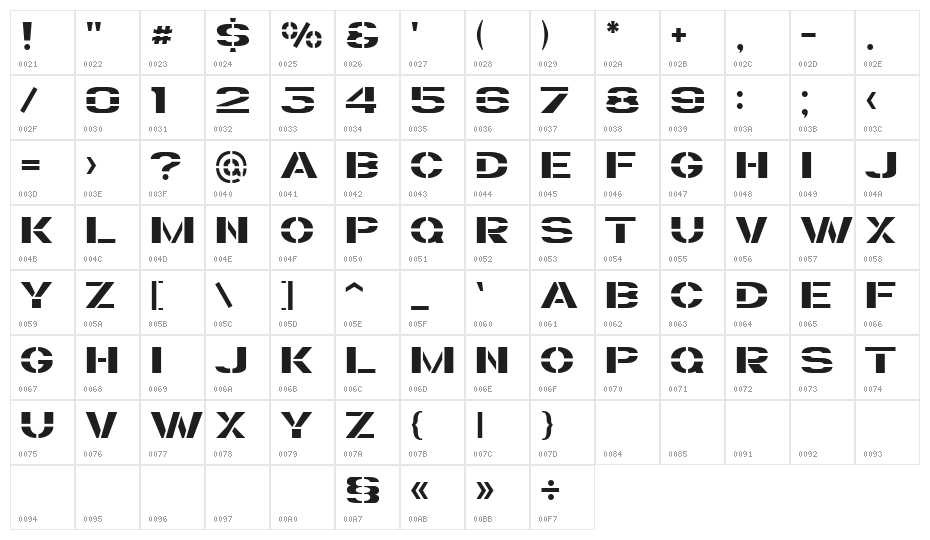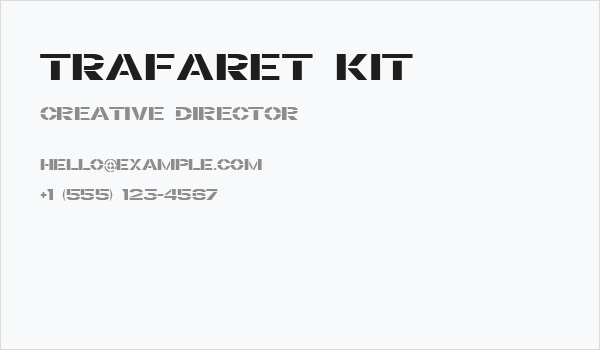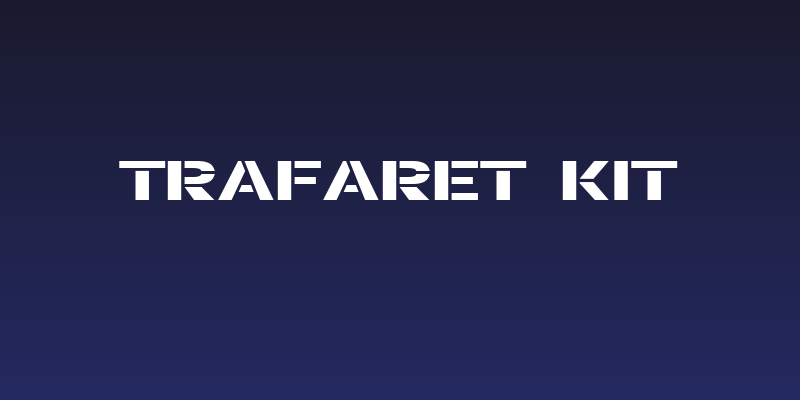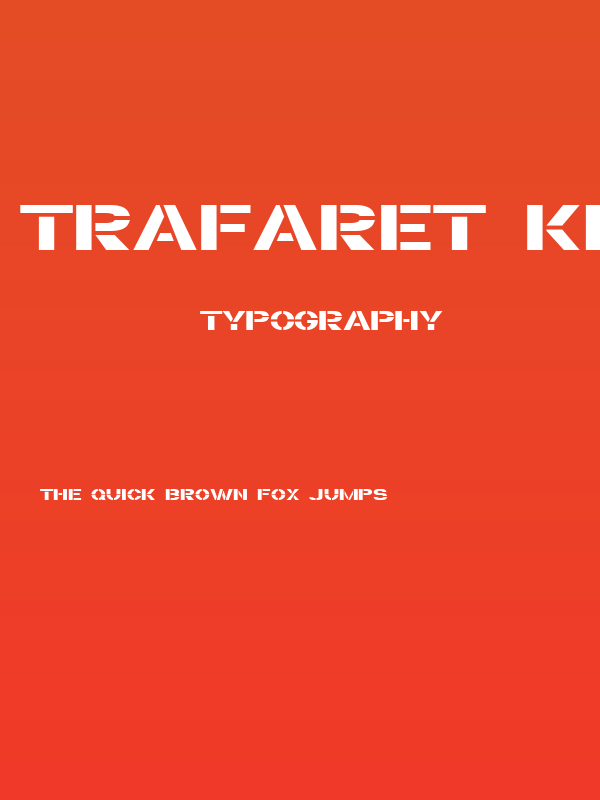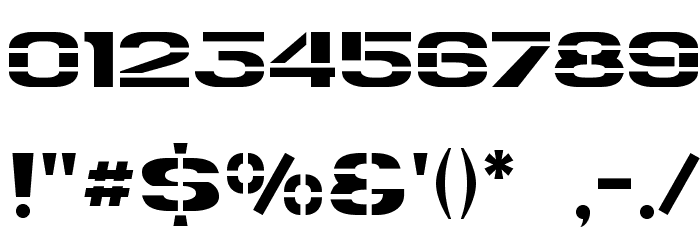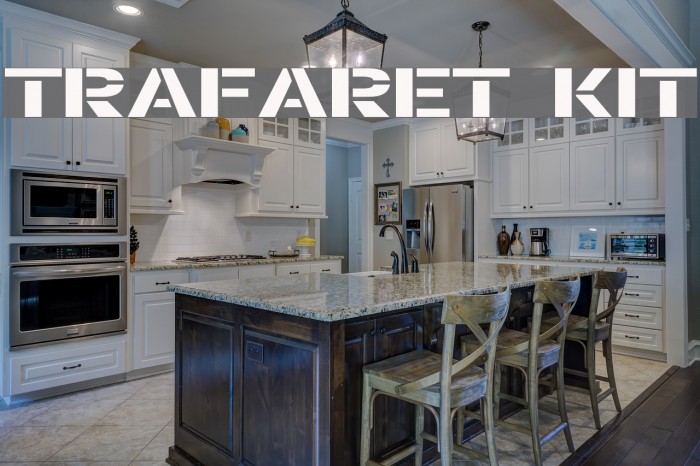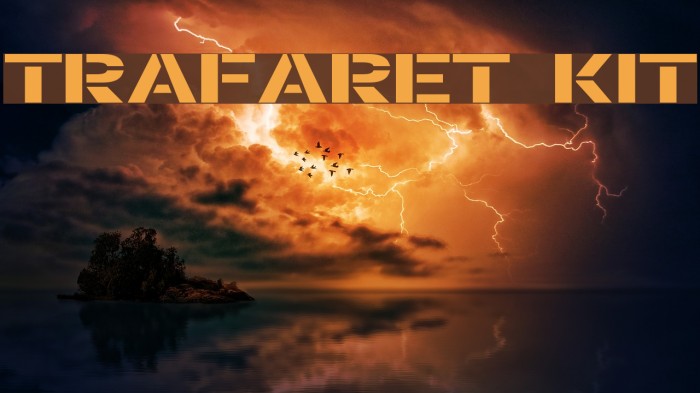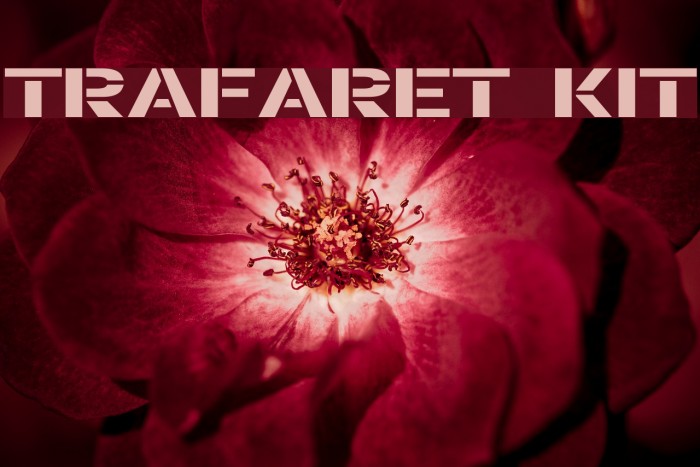
Trafaret Kit Font
Trafaret Kit Description
This font features a bold, stencil-like design with distinct gaps in each character, creating a striking and industrial appearance. The uppercase letters are uniform in height, with sharp angles and clean lines, contributing to a modern and edgy aesthetic. The numbers and special characters maintain this consistent style, ensuring a cohesive look across all text. Its unique structure makes it highly legible and suitable for impactful visual communication.
| Proposed Projects | Ideal for branding, signage, posters, and any project requiring a strong, industrial look. |